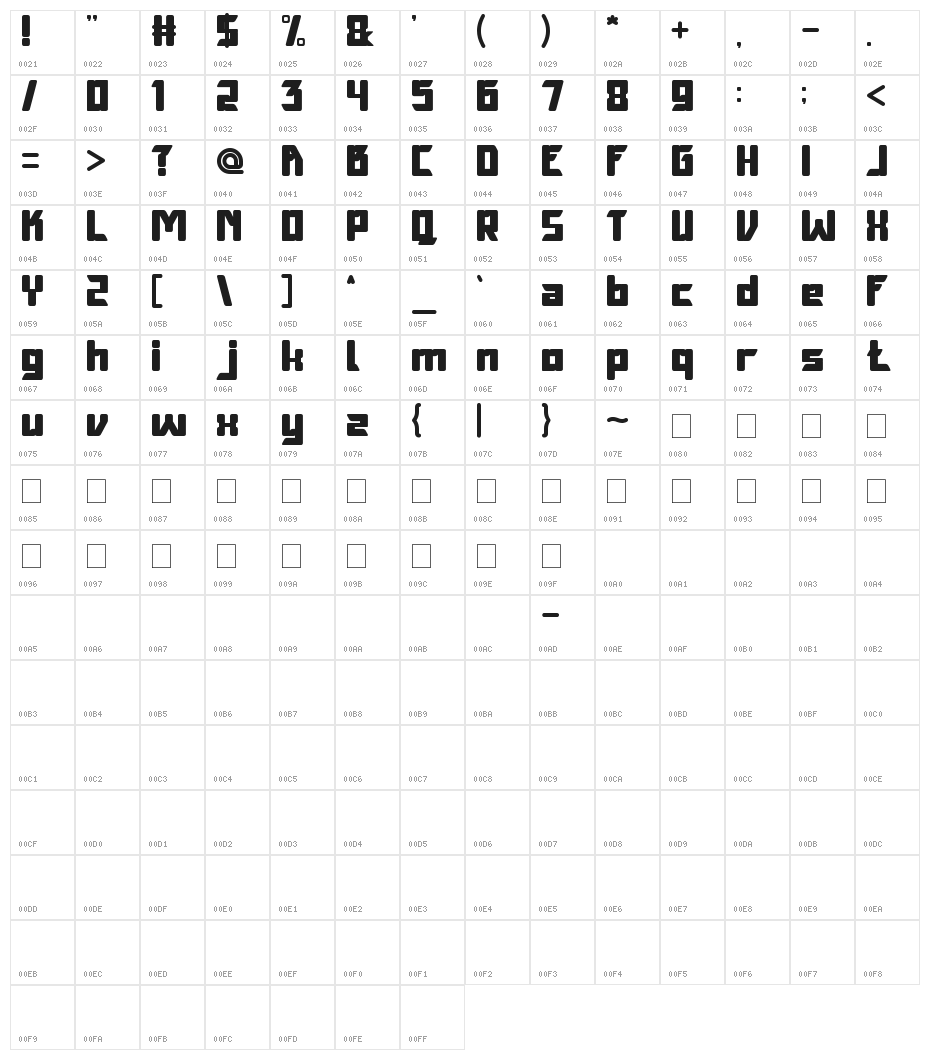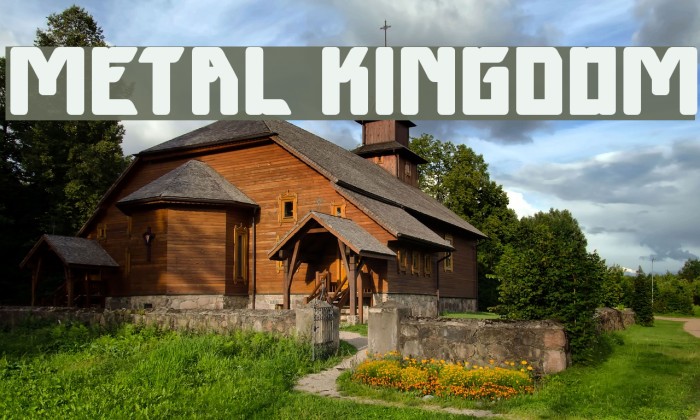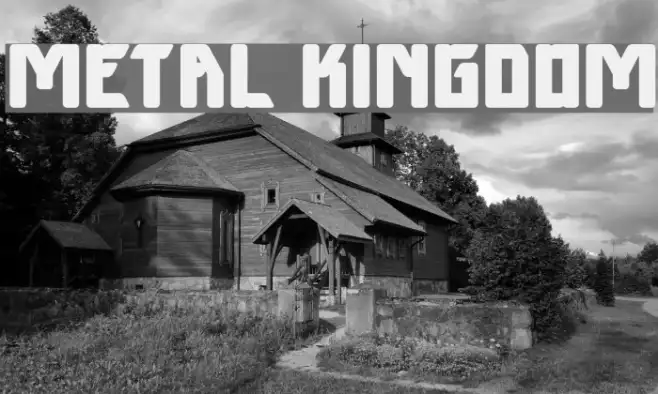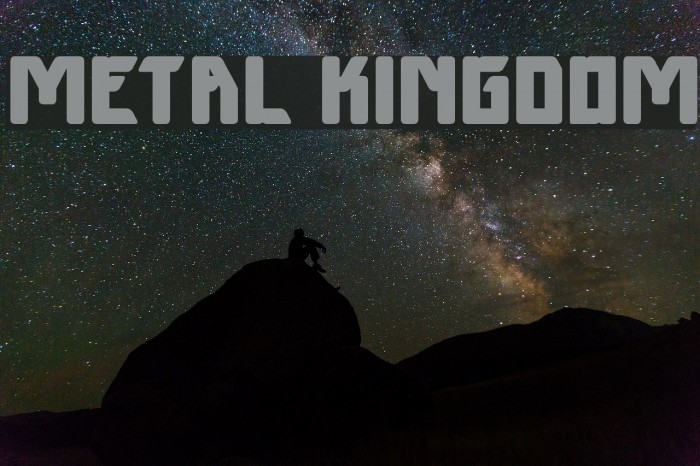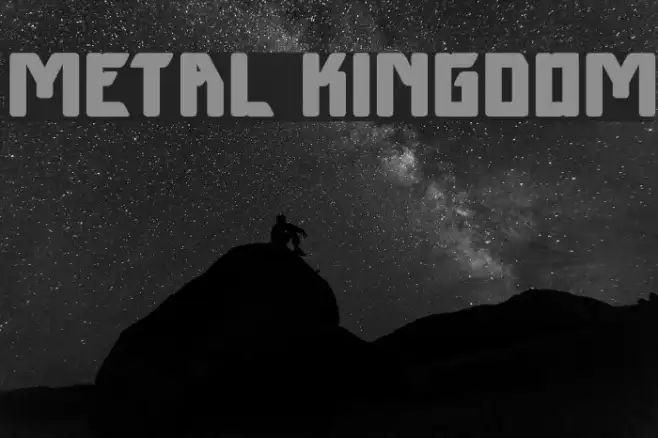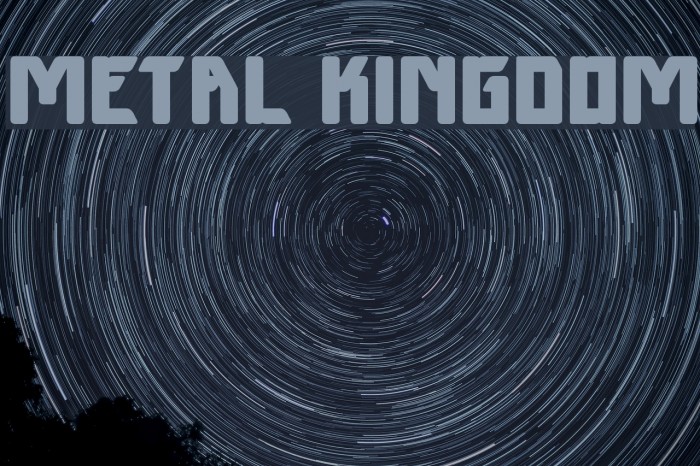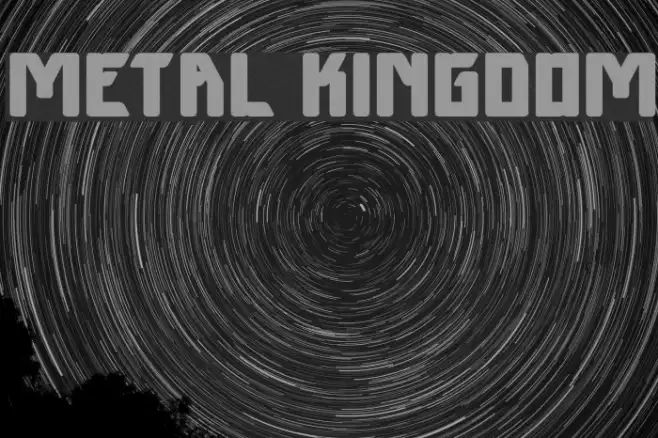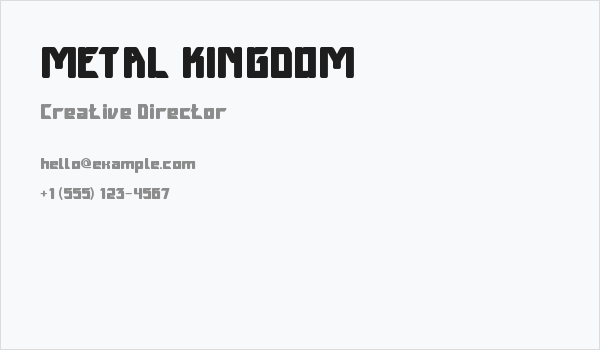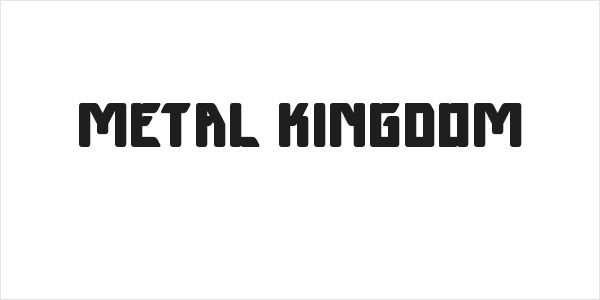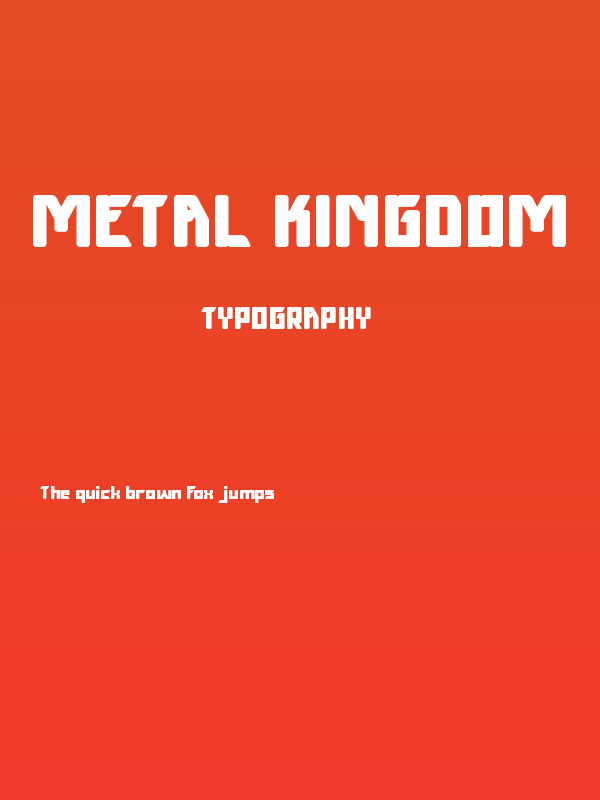
METAL KINGDOM Font
METAL KINGDOM Description
This font features a bold and striking design with a distinctly modern and industrial feel. The characters are blocky and robust, with angular edges and a uniform thickness that conveys strength and stability. The uppercase and lowercase letters maintain a consistent style, enhancing readability while adding a unique flair. Numbers and special characters are designed to match the boldness of the alphabet, making them stand out effectively. This font is ideal for projects that require a strong visual impact, such as branding for heavy industries or tech companies. Its bold nature makes it suitable for headlines and logos, where attention-grabbing text is essential.
| Proposed Projects | Ideal for branding, logos, headlines, and posters in tech or industrial sectors. |